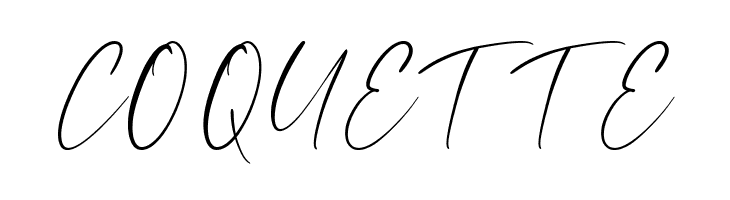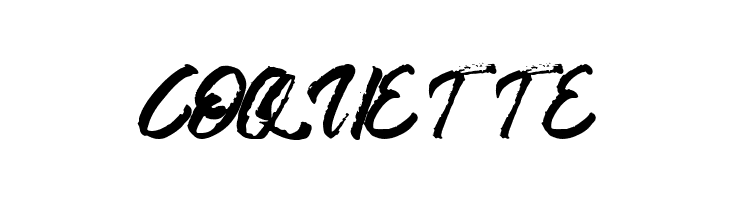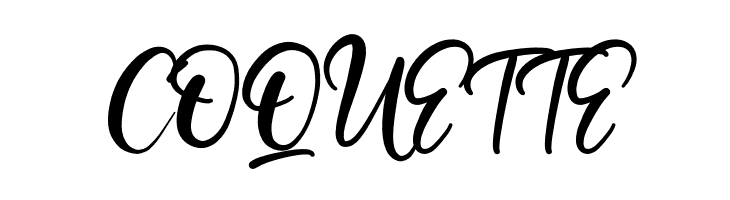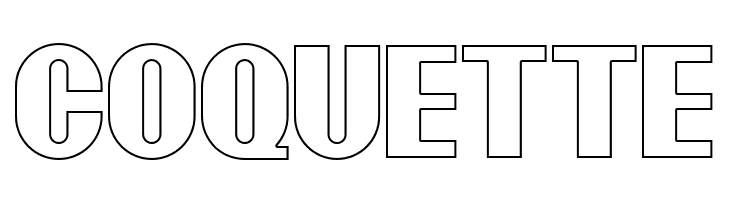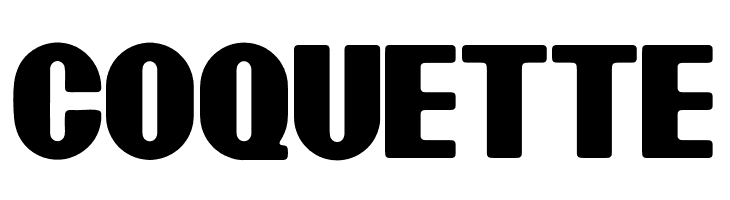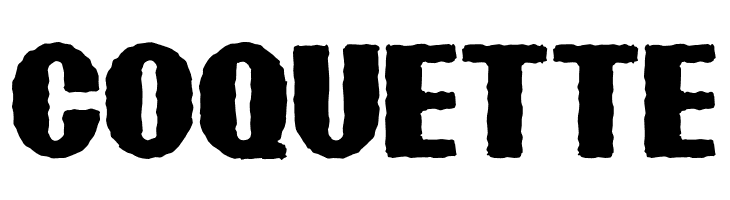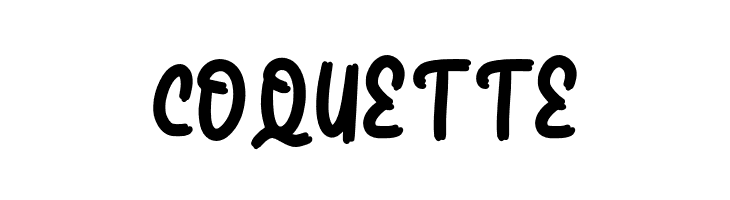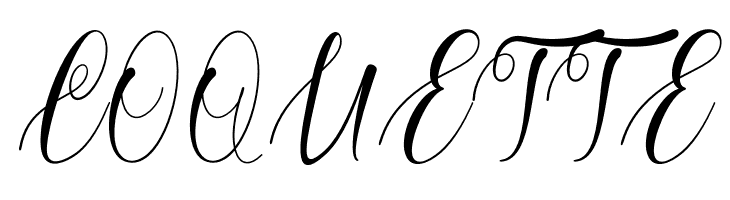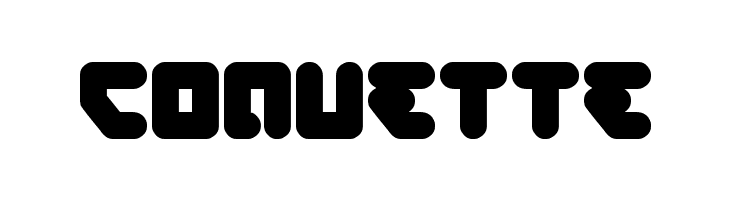
A bold, vintage-style font with distressed, hand-crafted characters.
A bold, modern font with strong, thick strokes and a robust appearance.
A bold, outlined typeface with geometric forms and clear borders.
A bold, textured font with a rugged, vintage style.
A bold, rounded font with a modern and approachable style.
A playful, bold font with thick, rounded outlines and a cartoonish style.
A bold, geometric font with angular shapes and thick strokes, ideal for headlines.
A bold, playful font with a hand-drawn marker style.
A casual, handwritten-style font with smooth, flowing strokes and a dynamic slant.
A bold, handwritten font with a marker-like appearance and smooth, rounded characters.
A bold, geometric font with a modern and edgy style.
A bold, playful handwritten font with thick strokes and a casual style.
A bold, hand-painted style font with expressive, irregular strokes.
A bold, decorative font with a three-dimensional effect and condensed style.
A dynamic, cursive script font with elegant curves and decorative flourishes.
A playful and elegant script font with flowing, cursive letterforms.
An elegant script font with flowing, cursive letters and artistic flair.
A fluid, cursive script font with a natural handwritten style.
A cursive, handwritten font with elegant, flowing strokes and dynamic contrast.
A bold, expressive handwritten font with dynamic brush strokes.
A bold, distressed font with a hand-drawn, grunge aesthetic.
A flowing, cursive font with a handwritten, elegant style.
A sophisticated, elegant script font with flowing, cursive letterforms.
A classic serif font with elegant strokes and a modern appeal.
An elegant, flowing script font with a classic, sophisticated appearance.
A bold, elegant cursive font with high contrast and flowing style.
An elegant script font with flowing cursive strokes and decorative swashes.
A modern, cursive font with elegant, flowing characters.
A dynamic and flowing script font with elegant cursive letterforms.
A fluid, elegant script font with a sophisticated handwritten style.
A bold, playful script font with a handwritten style.
A bold, playful script font with a handwritten feel.
A dynamic and elegant script font with fluid, cursive strokes.